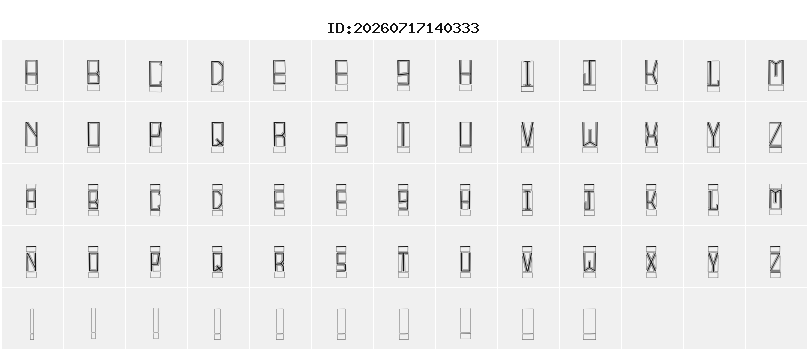
BlockTitling Preview
• Font Name: BlockTitling
• Font Style: Outline
• Font ID: Macromedia Fontographer 4.1.5 BlockTitling Outline
• Full Font Name: BlockTitling Outline
• PostScript Name: BlockTitlingOutline
• Character Count: 252
About BlockTitling.ttf
BlockTitling.ttf is a modern, elegant sans-serif font designed for ultimate readability and visual harmony. Perfect for branding, headlines, web design, and print materials.